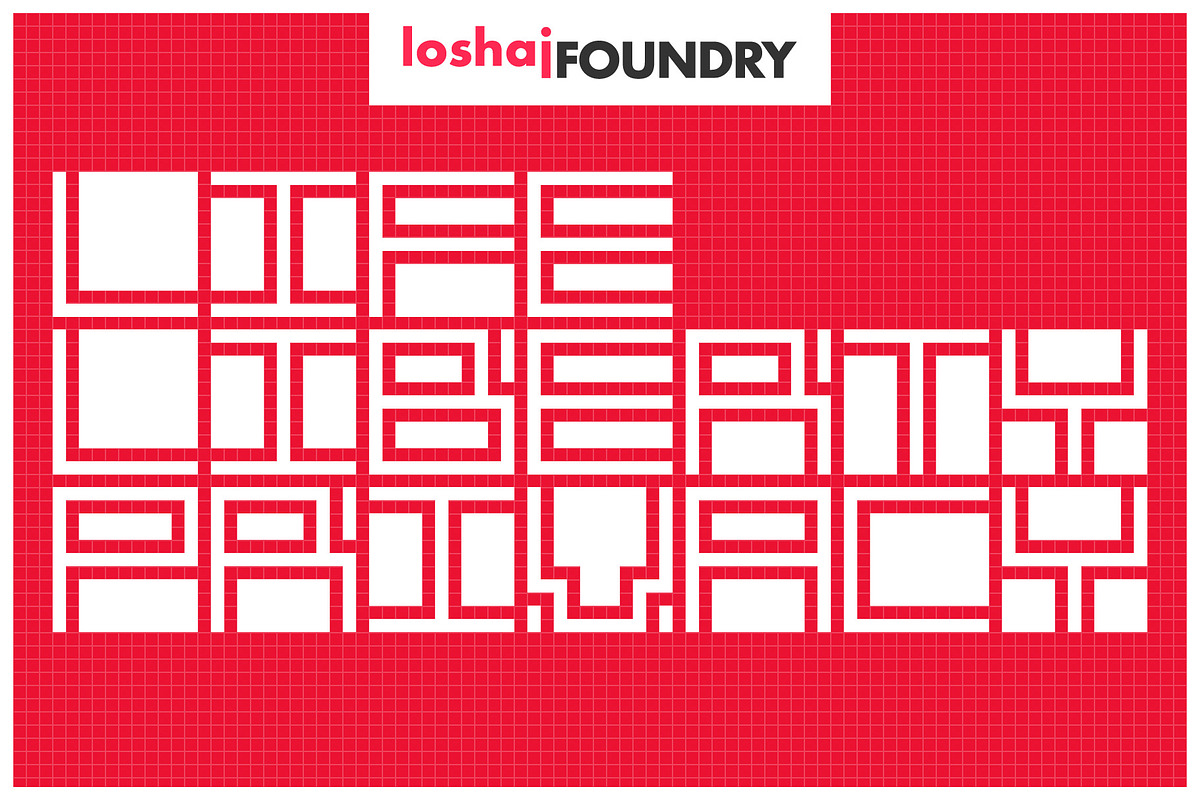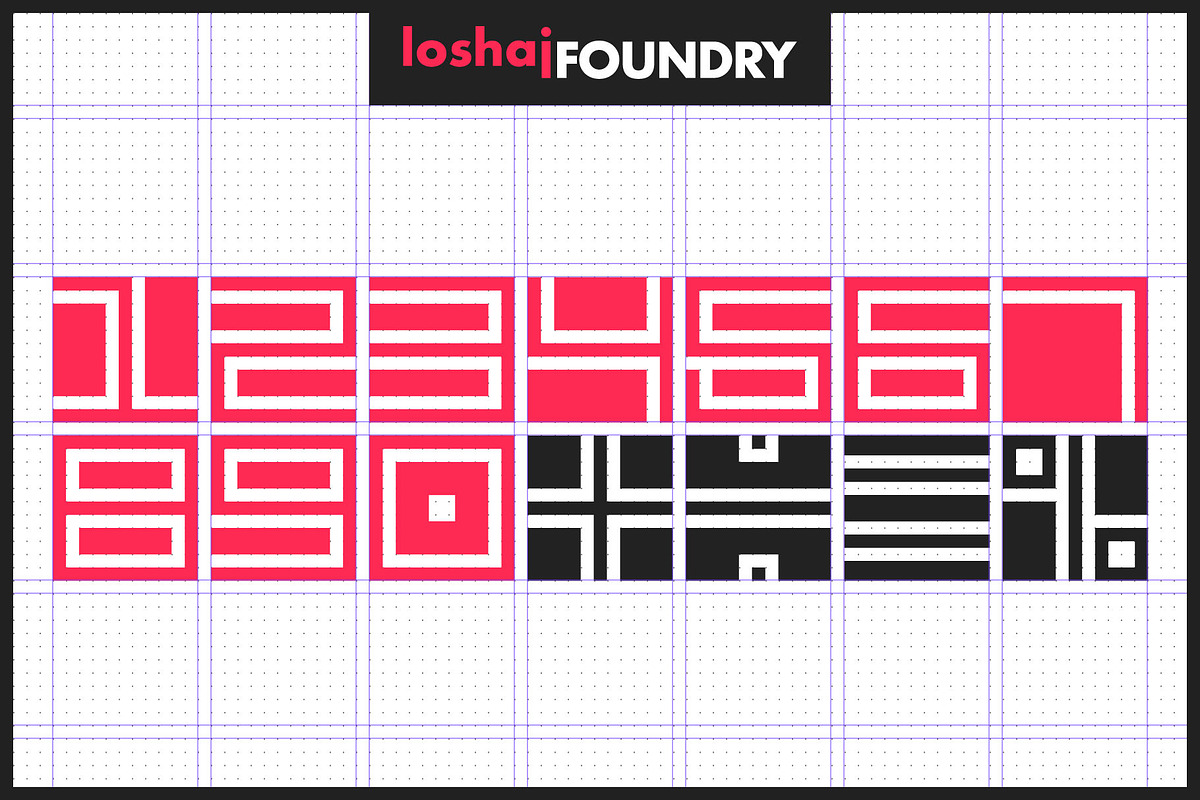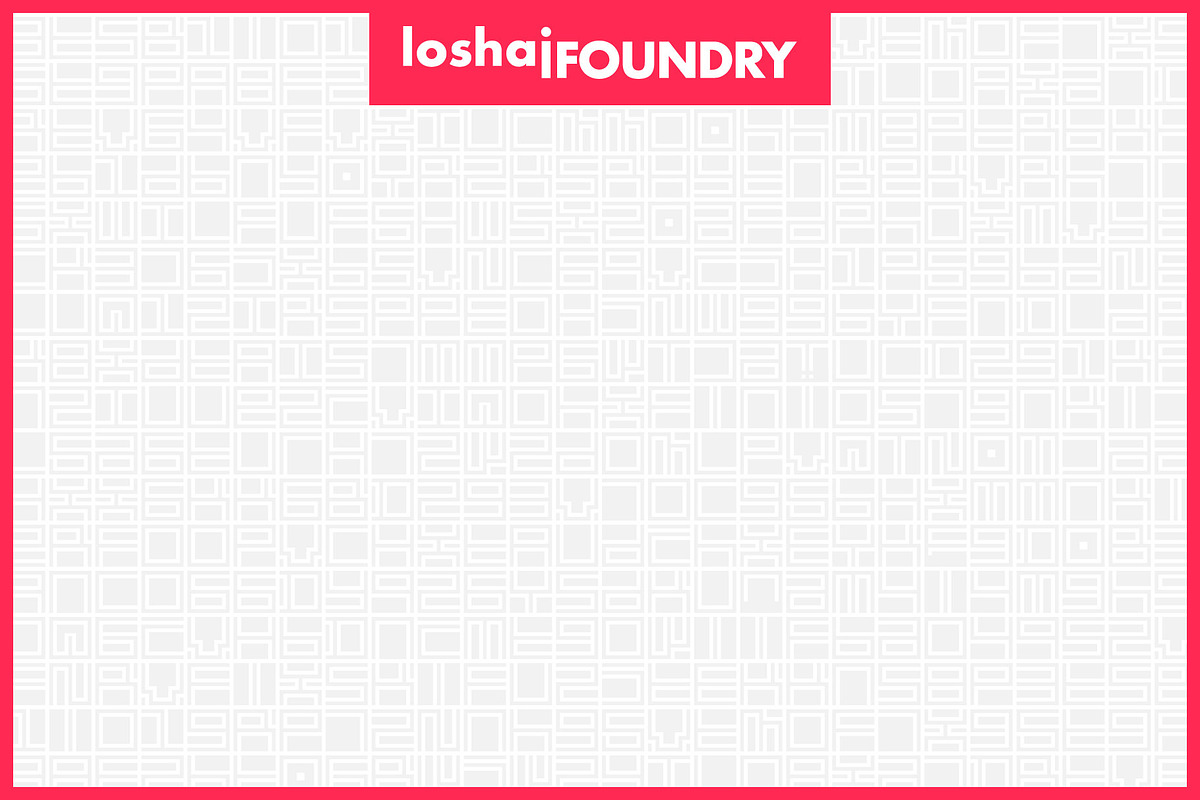
Cubit
The font is intended to be used as a header or headline font. Most of the characters are based on the same rectangle and therefore contain the same width which displays symmetry. The font contains 300+ glyphs which includes uppercase letters, lowercase alternates, numbers, symbols, accented characters for multiple language support.